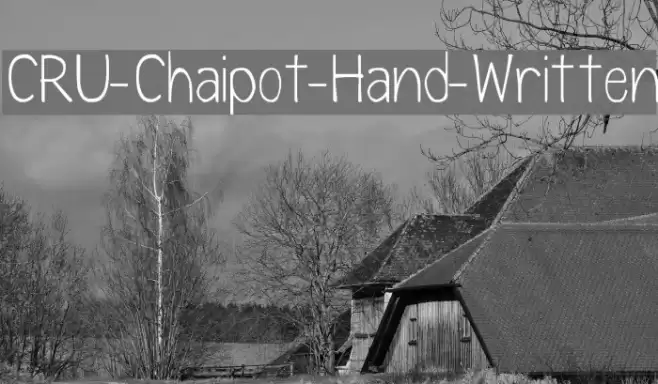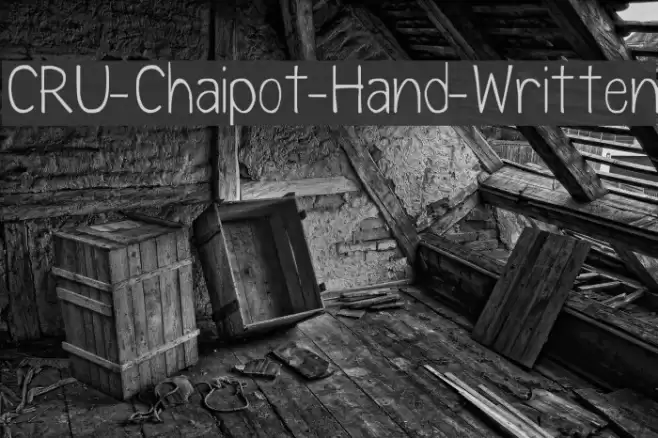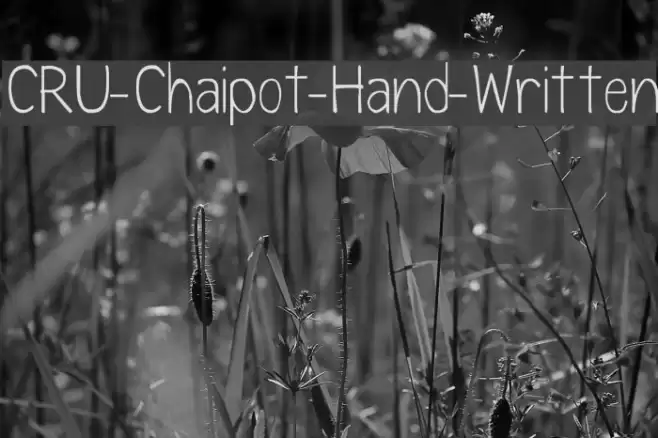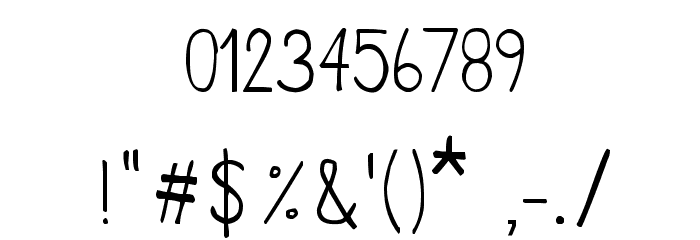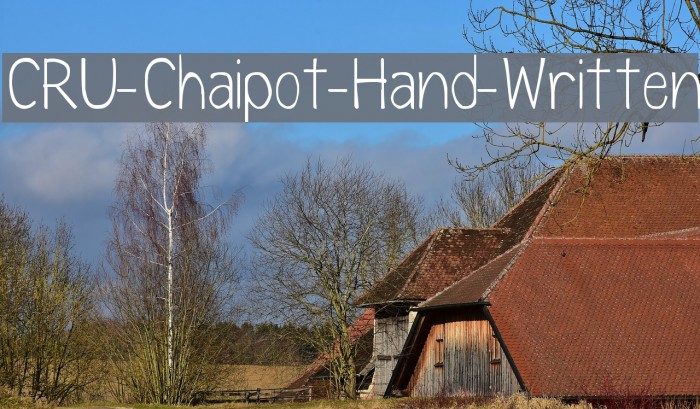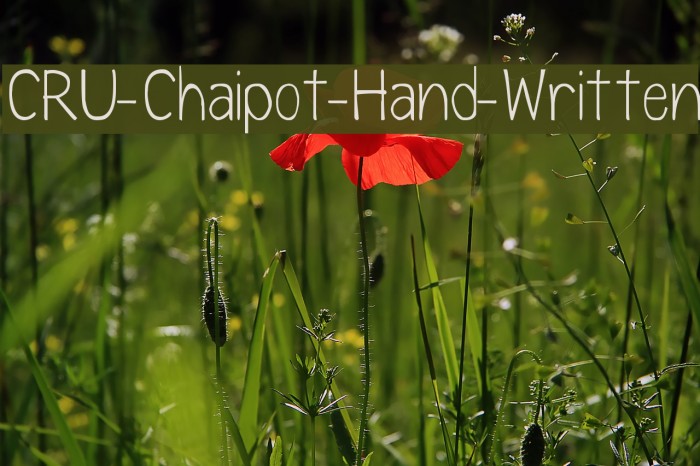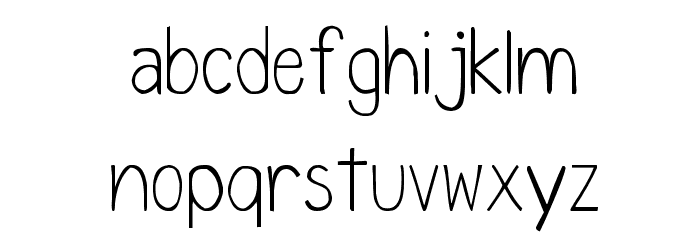
CRU-Chaipot-Hand-Written Font
CRU-Chaipot-Hand-Written Description
This font features a playful and casual handwritten style, characterized by its slightly irregular letterforms and a friendly, approachable appearance. The strokes are consistent in width, giving it a uniform look while maintaining a sense of spontaneity typical of hand-drawn fonts. The uppercase letters are bold and slightly elongated, while the lowercase letters are more rounded and compact, providing a nice contrast. The numerals and special characters are designed to match the overall style, ensuring coherence across all text elements. This font exudes a sense of warmth and creativity, making it suitable for projects that require a personal touch.
A playful handwritten font with consistent strokes and a friendly appearance from Uncategorized fonts.
- Proposed Projects: Ideal for greeting cards, children's books, casual branding, and social media graphics.
- Overall Style: Casual, Playful
- Use Case: Logos, Headlines, Informal Text